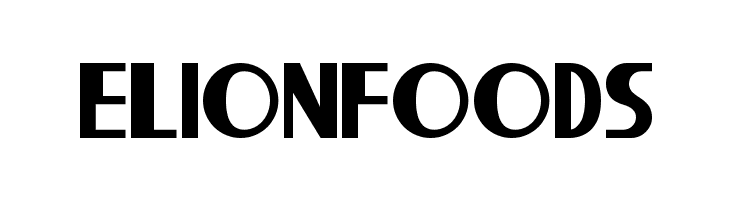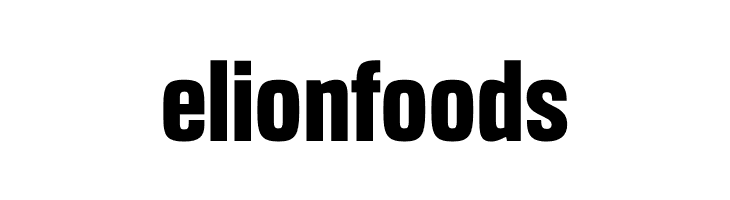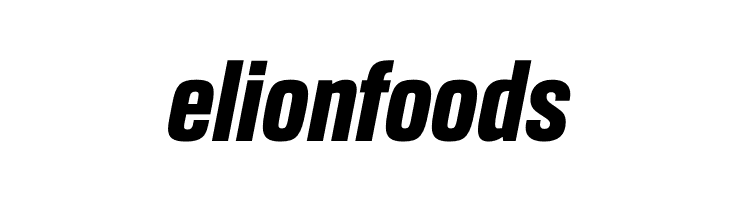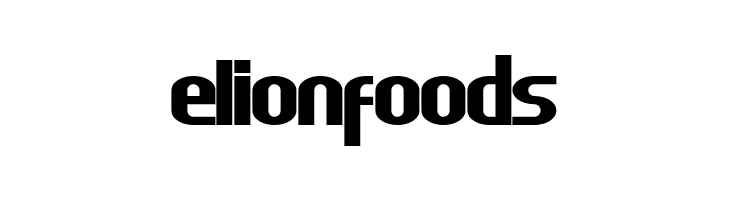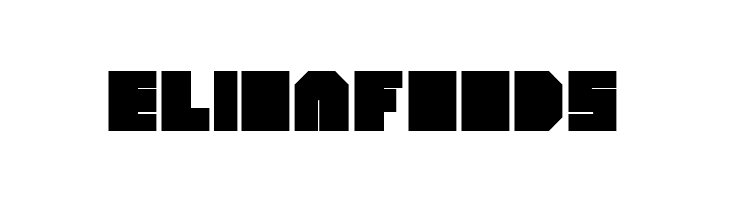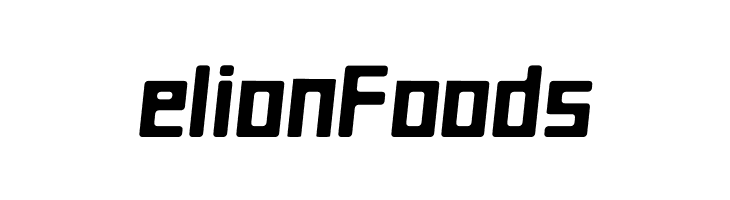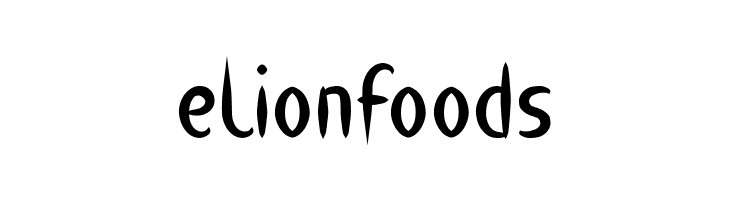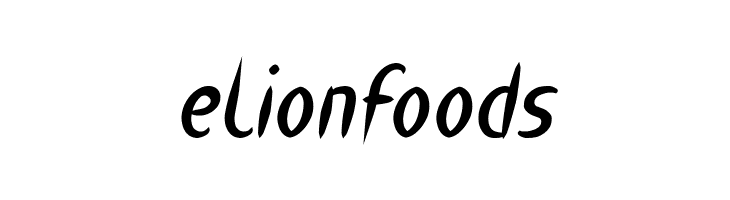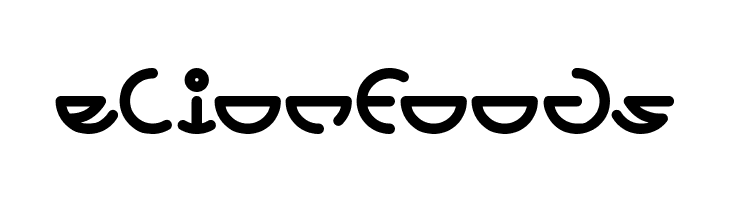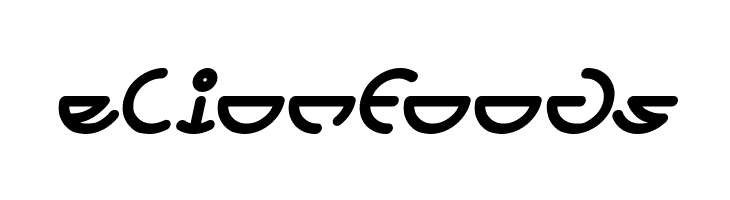
A bold, impactful font with uniform strokes, perfect for attention-grabbing designs.
A bold, italicized font with strong, thick strokes and a modern, dynamic style.
A bold, modern font with geometric shapes and clean lines, perfect for impactful headlines and branding.
A playful, heart-themed font with bold, dynamic strokes.
A bold, italic handwritten font with a dynamic and energetic style.
A bold, modern font with geometric, rounded characters.
A bold, decorative font with rounded, interconnected characters.
A bold, italicized font with playful, rounded characters and a whimsical style.
A bold, geometric font with angular shapes and a strong, industrial aesthetic.
A bold, geometric font with a modern and striking design.